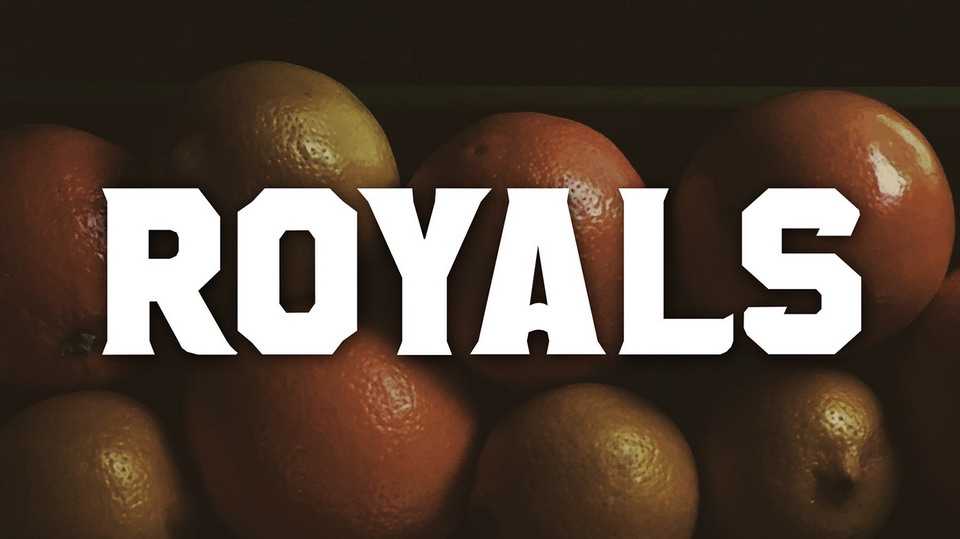
Download Royals font family, a display typeface combining classic and edgy modernism. Royals is suitable for logos, badges, labels, posters, headlines and other vintage inspired projecs.
Designer: Paul Reis